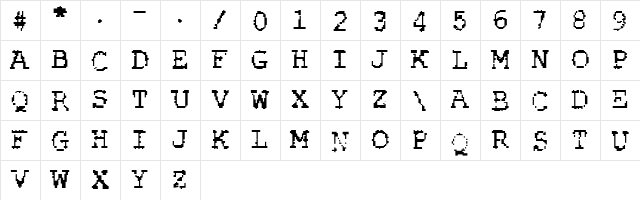
Express Biscuit Font Preview
Express Biscuit
Express Biscuit Font Details
Design Context for Express Typeface
Express is a composed and adaptable typeface that performs quietly and consistently across a wide range of design contexts.